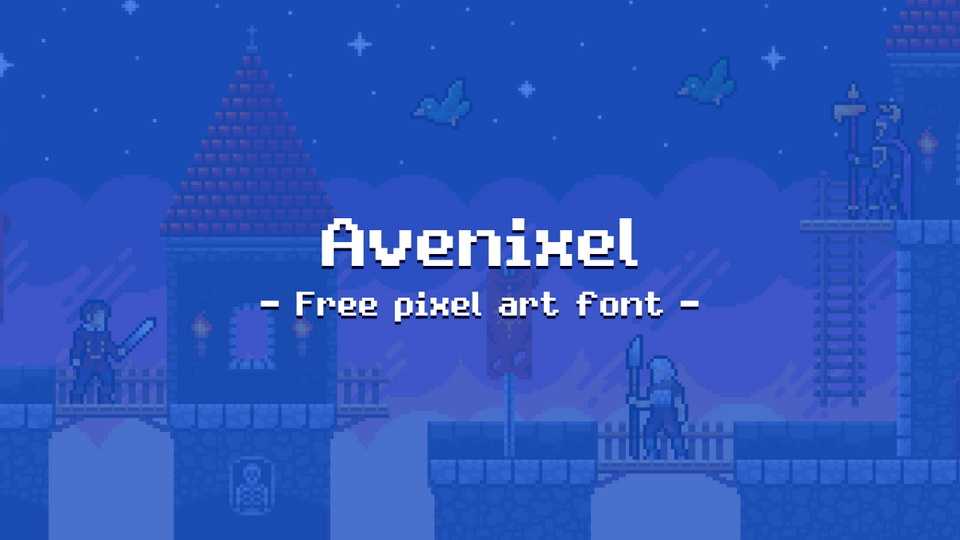
Avenipixel Font › Fontesk – Download Grátis
Download Avenixel font, a font intended to be used for projects with a retro design and video games. Avenixel characters are made of simple shapes that are easily readable and can work with various types of projects.
Designer: Gabriel Sammartino